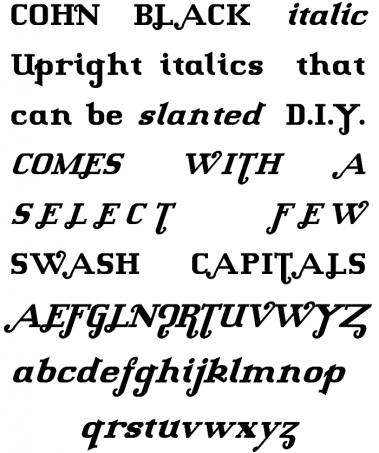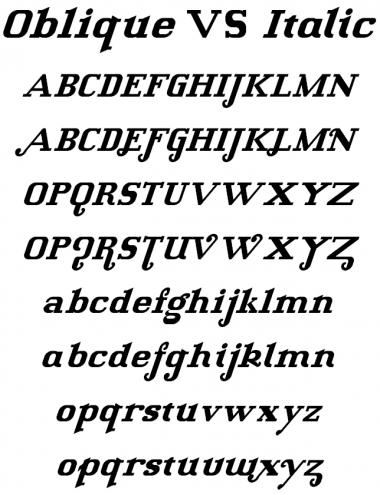
Cohn Black Italic
Cohnisgone
Clone of Cohn Black.
so pretty...the flourishes...so..perfect..so..very..perfect. Congrats, you stunned me with simple, yet unique qualities of the font.
Thank you time.peace. But I was wondering whether I'd made the swash on U too simple and not flourish-y enough. Any thoughts?
I think the U is fine. Z and X are quite wide, and 5 is a bit...derpy weird.